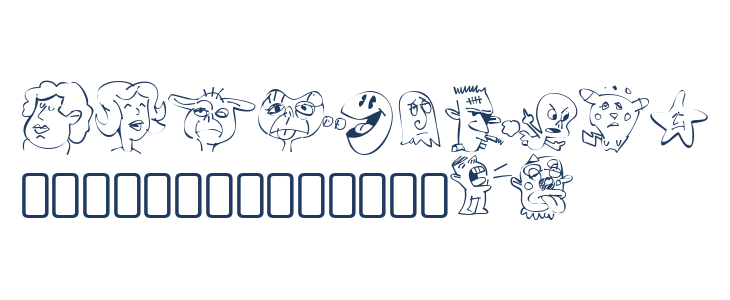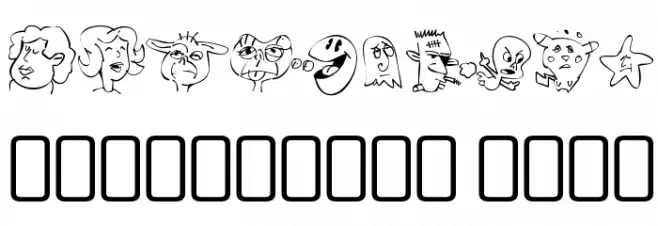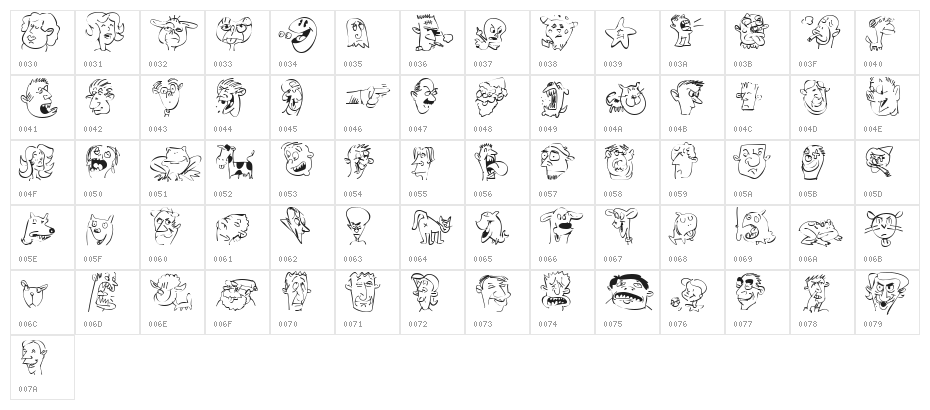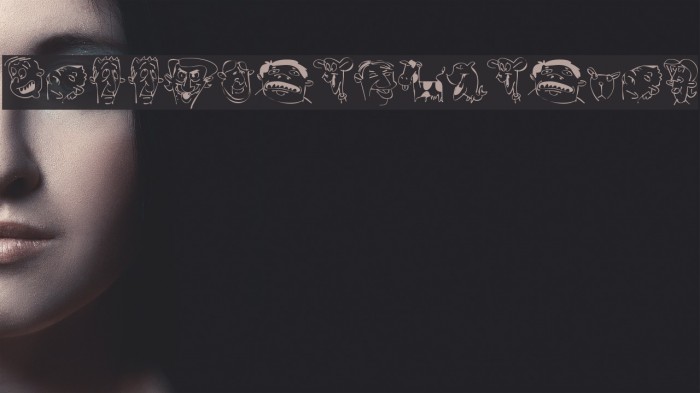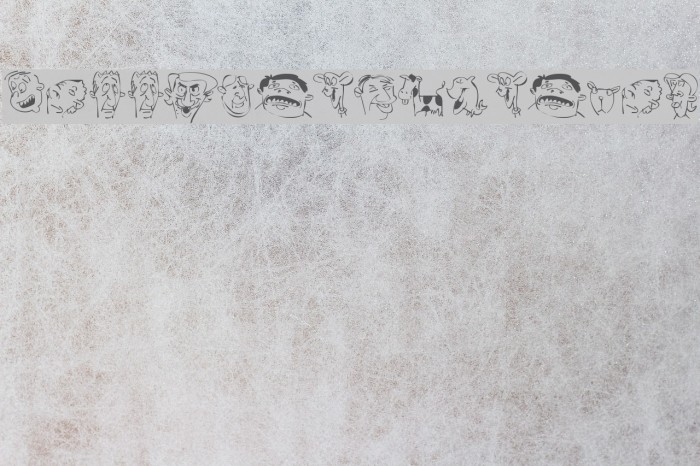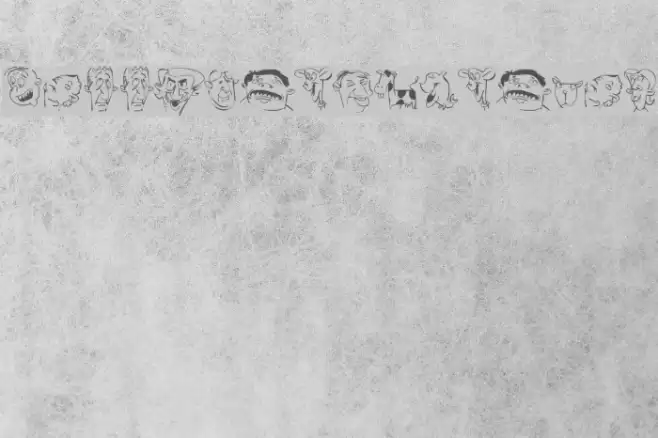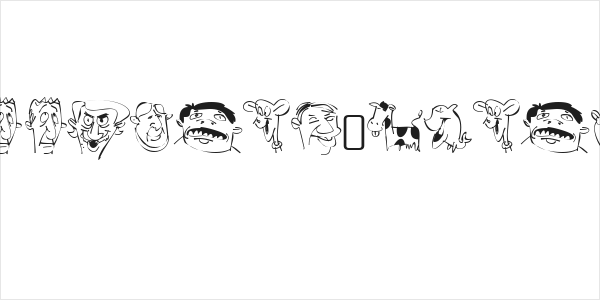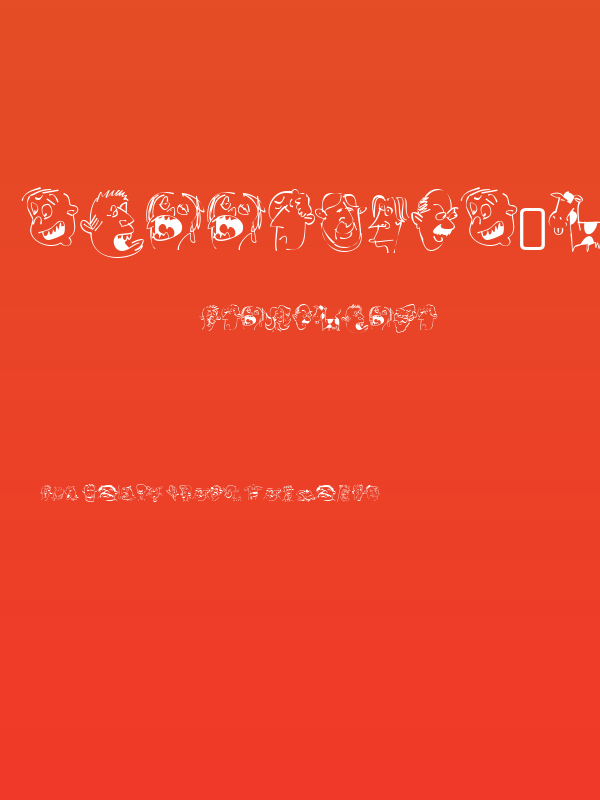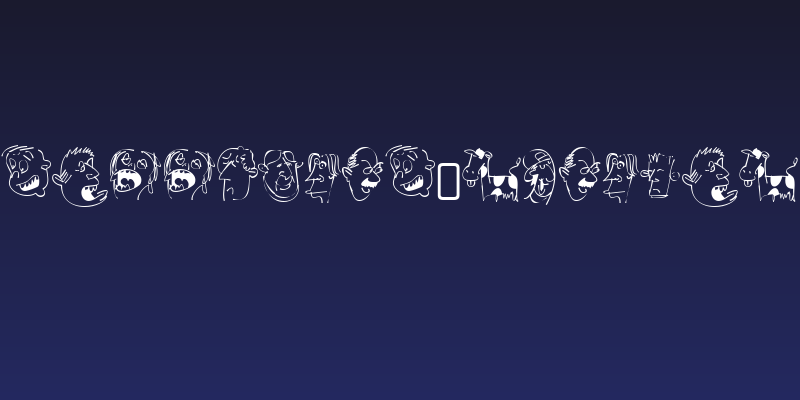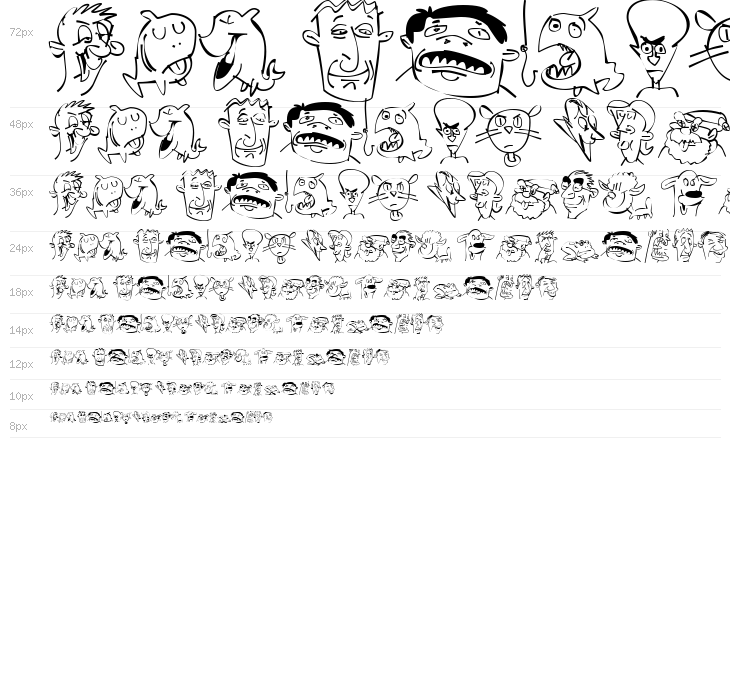
SappyMugs-Regular Font
SappyMugs-Regular Description
This is a whimsical and playful font featuring a series of cartoonish faces and characters. Each character is uniquely designed with exaggerated expressions and quirky details, making it ideal for projects that require a fun and lighthearted touch. The font captures a sense of humor and creativity, with each glyph representing a different personality or emotion. The line work is clean yet dynamic, adding to the overall charm and appeal. This font is perfect for adding a unique and entertaining element to any design.
| Overall Style | Whimsical, Playful, Cartoonish |
| Use Case | Logos, Posters, Children's Books, Comics |
| Proposed Projects | Ideal for children's books, comic strips, playful branding, greeting cards, and creative posters. |